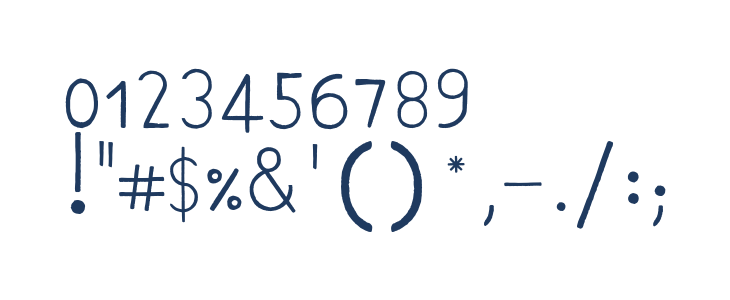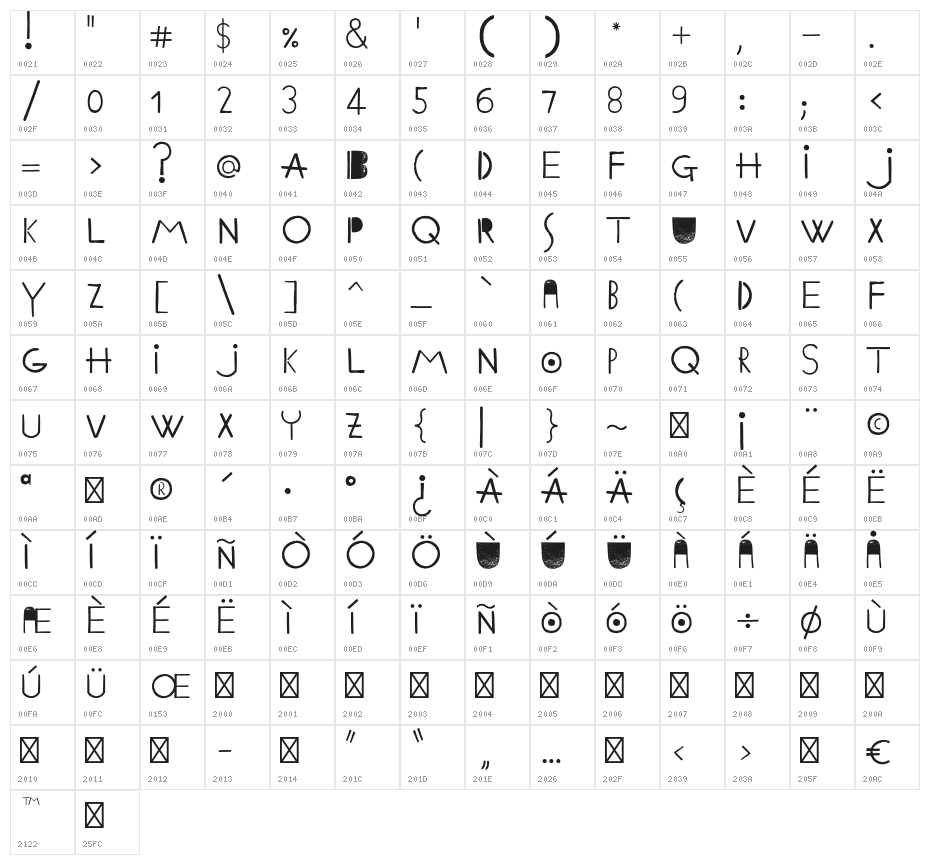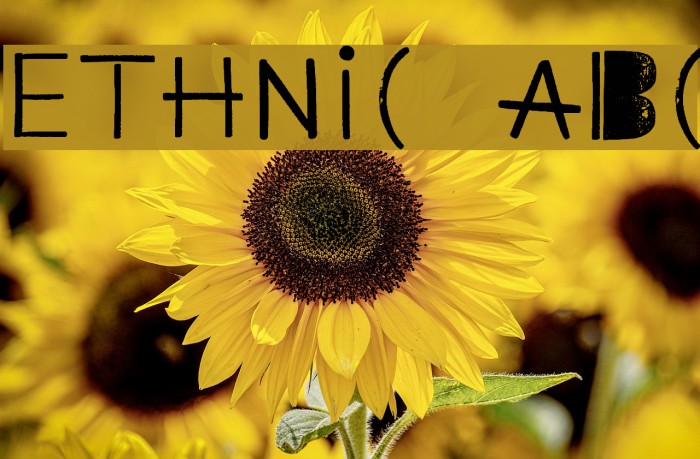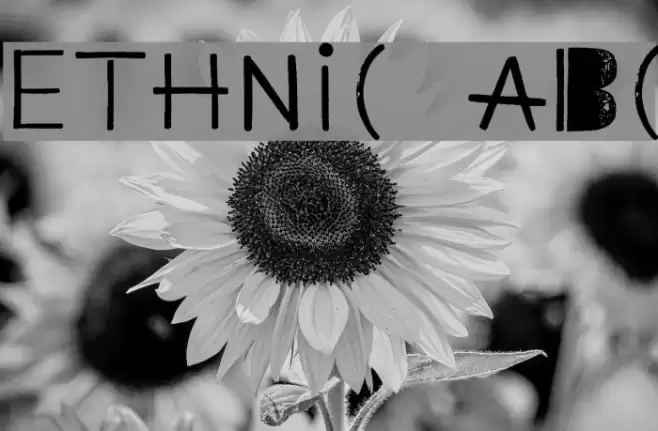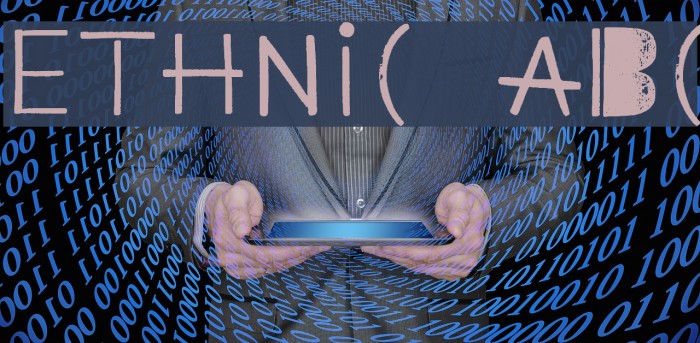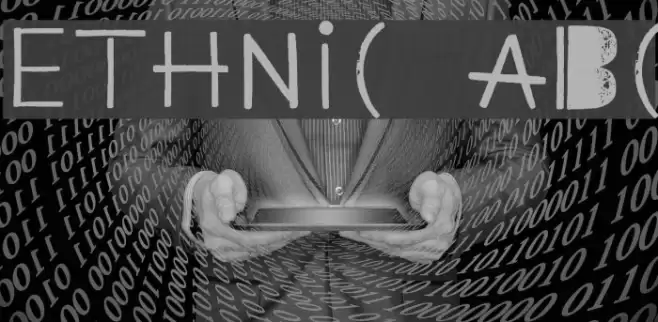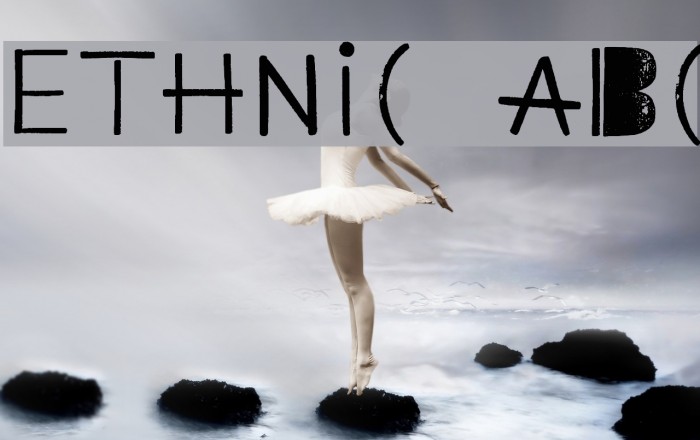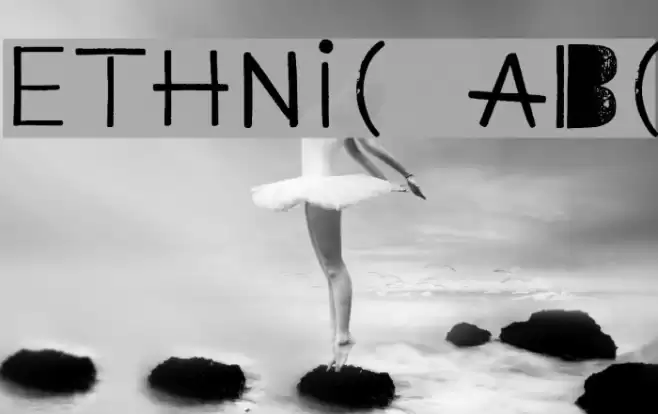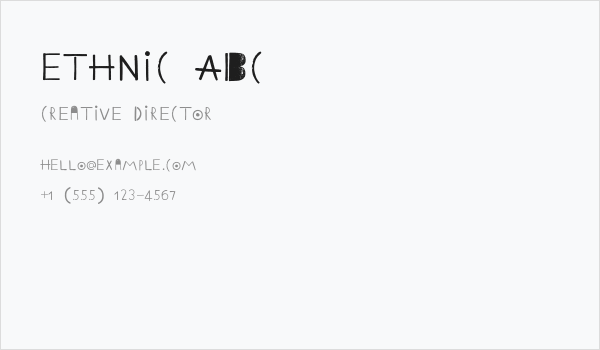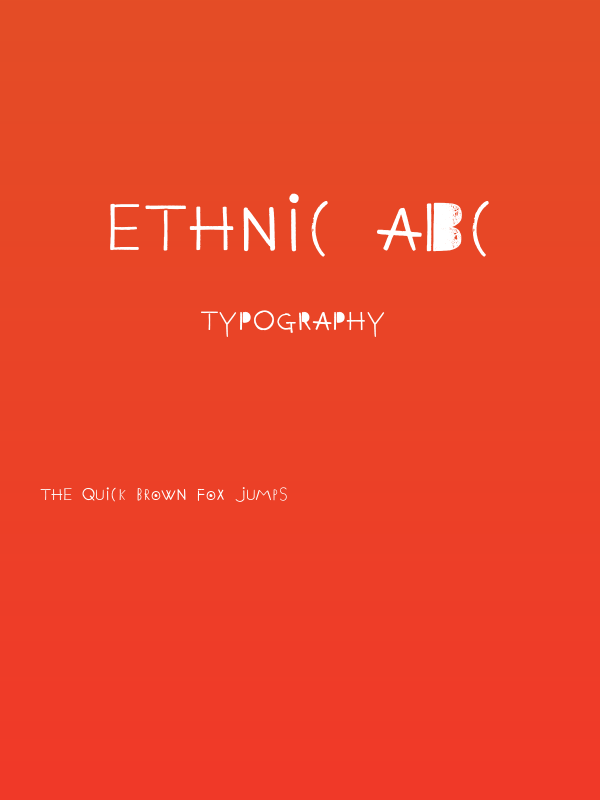
Ethnic ABC Font
Ethnic ABC Description
This font features a unique and eclectic design, combining elements of both modern and tribal aesthetics. The uppercase letters are bold and striking, with some characters incorporating geometric shapes and patterns that give them an ethnic flair. The lowercase letters maintain a more streamlined appearance, yet they still carry subtle hints of the same stylistic elements. Numbers and special characters are crafted with similar attention to detail, ensuring a cohesive look throughout. The overall design is both artistic and functional, making it suitable for a variety of creative projects.
| Proposed Projects | Ideal for cultural event posters, artistic branding, unique packaging designs, and creative editorial layouts. |